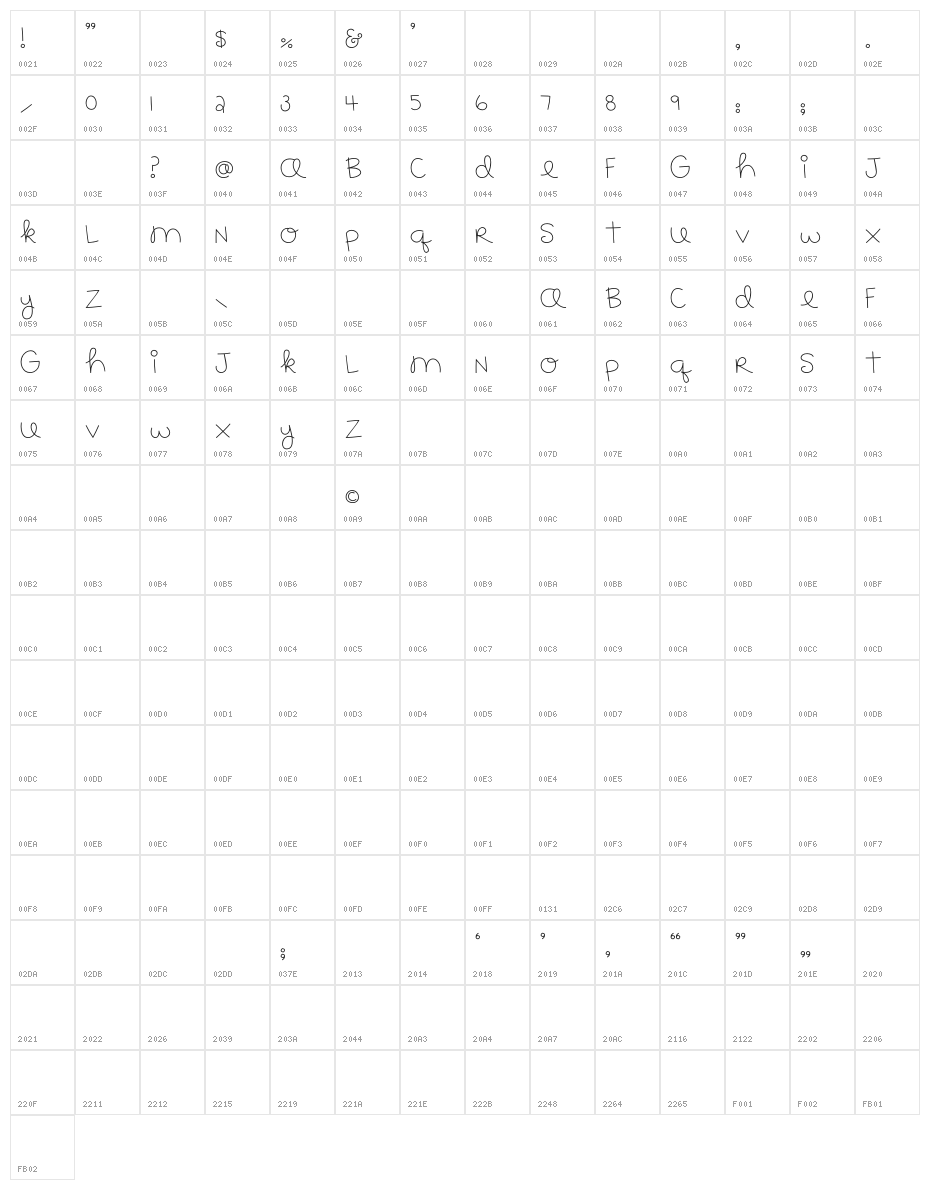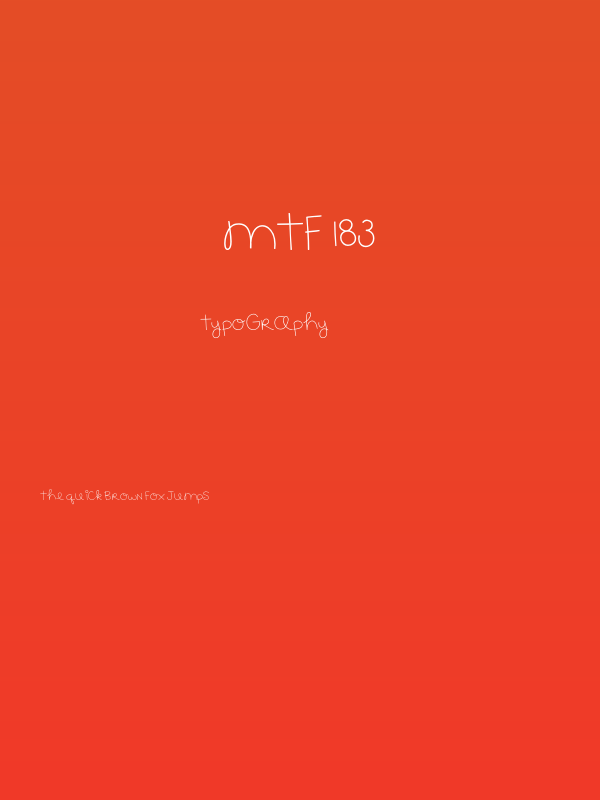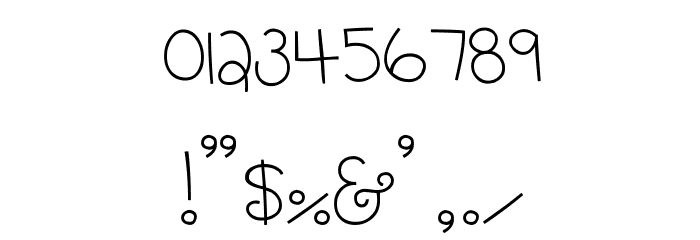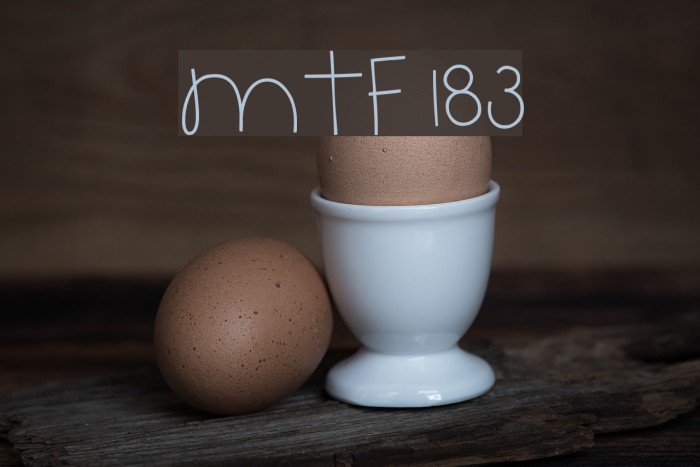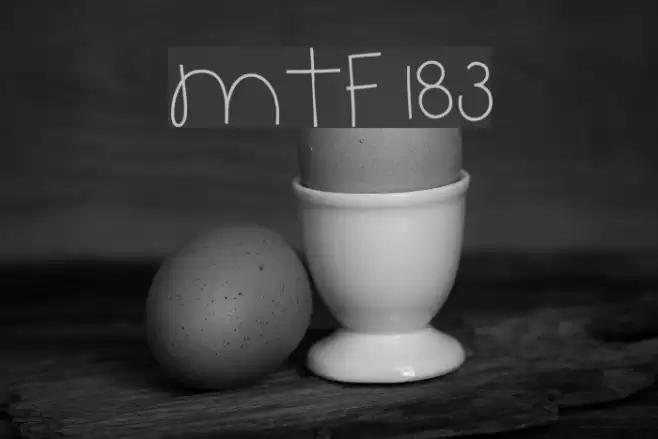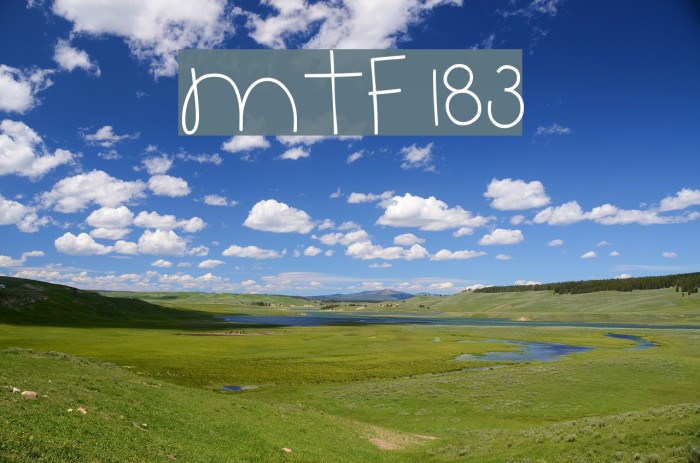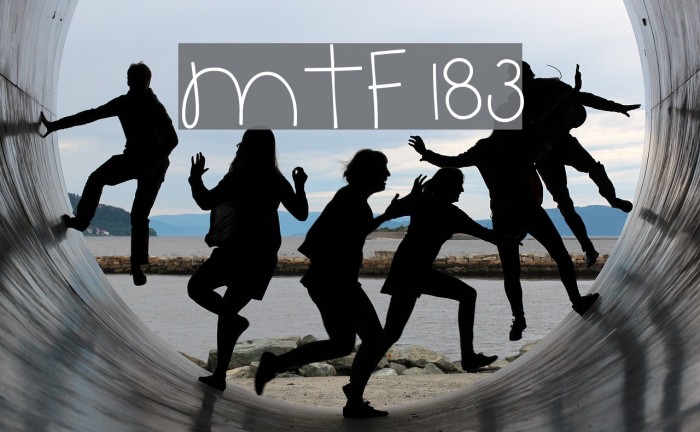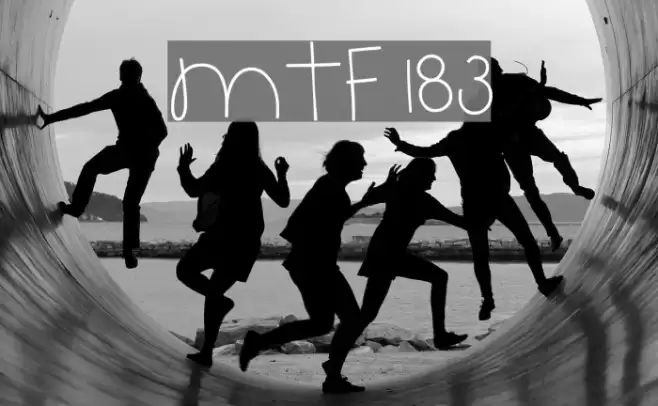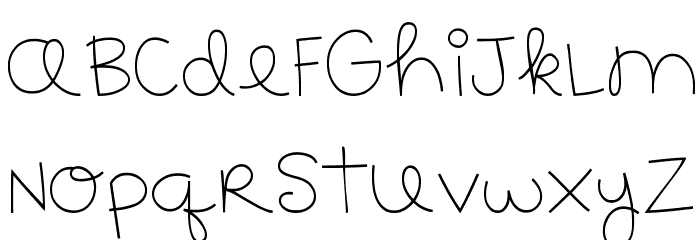
MTF 183 Font
MTF 183 Description
This playful and whimsical font features a handwritten style with a casual and friendly appearance. The letters are characterized by their smooth, flowing lines and slightly irregular shapes, giving them a unique and personal touch. The uppercase and lowercase letters maintain a consistent style, with rounded edges and a slight tilt that adds to the font's charm. The numbers and special characters follow the same design principles, ensuring a cohesive look across all elements. This font is perfect for projects that require a touch of personality and creativity.
| Overall Style | Playful |
| Use Case | Logos, Invitations, Greeting Cards |
| Proposed Projects | Ideal for greeting cards, children's books, playful branding, and creative invitations. |